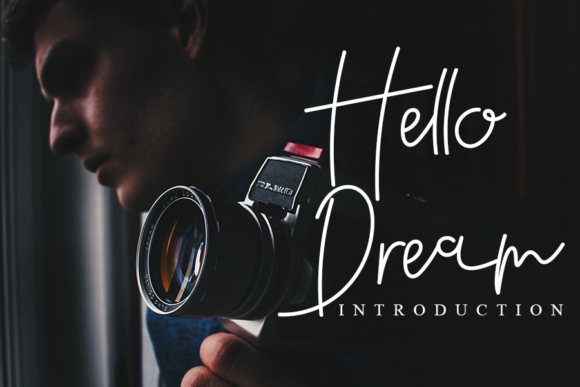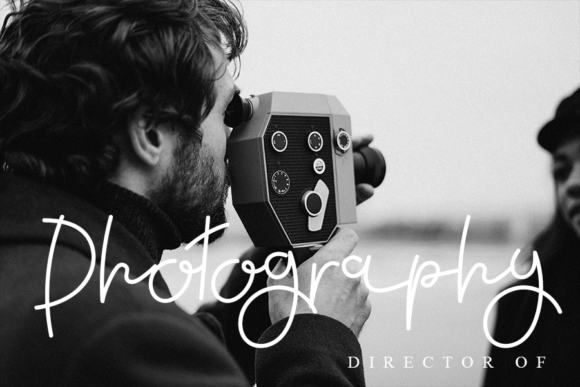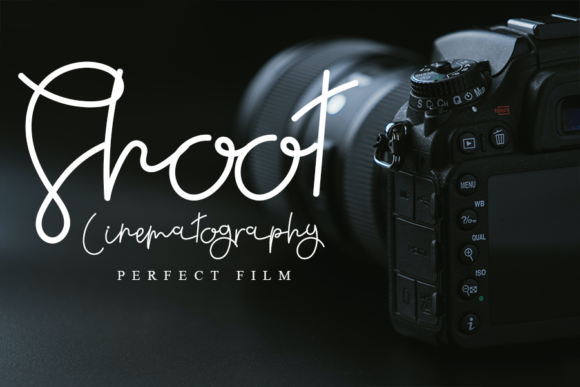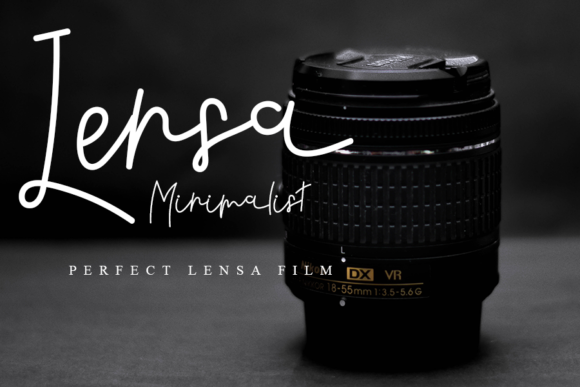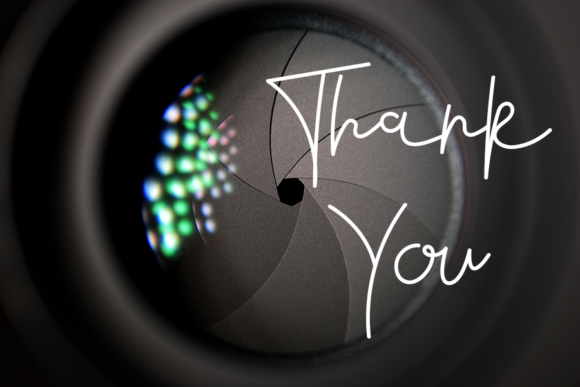
Hello Dream Font
About Hello Dream Font
Hello Dream is a timeless and relaxed handwritten font. Fall in love with its incredibly versatile style and use it to create gorgeous wedding invitations, beautiful stationary art, eye-catching social media posts, and much more!